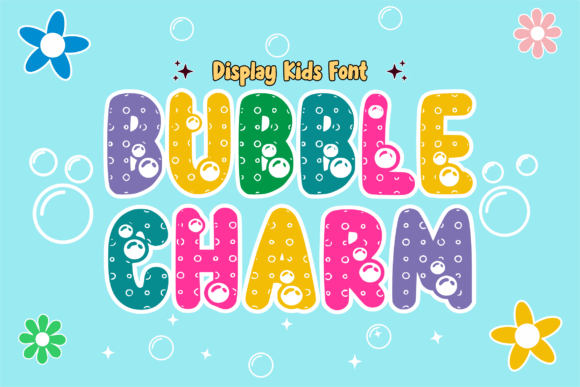
Introducing Bubble Charm: The Playful Font That’s Making Waves in the Design World
Have you ever been in the middle of a design project, and suddenly, you’re stuck on finding the perfect font? I recall a recent experience where I was working on a children’s book cover, and I just couldn’t find a font that captured the playful, whimsical feel I was going for. That’s when I stumbled upon “Bubble Charm,” a cheerful decorative bubble font with a children’s theme that completely transformed my design.
The Birth of Bubble Charm
Bubble Charm is more than just a font – it’s a design element that brings a smile to your face. Each character is carefully crafted to be bubbled, making it easy to recognize and perfect for a variety of creative projects, from sublimation designs for t-shirts and mugs to animations and comic titles. The font’s unique charm (pun intended!) is sure to make your designs stand out.
My Honest Review of Bubble Charm
So, what do I love about Bubble Charm? Here are a few highlights:
- ✨ Playful and Whimsical: The bubbly design of each character is perfect for children’s themes, adding a touch of fun and playfulness to any project.
- ✅ Easily Readable: Despite its decorative nature, Bubble Charm remains highly legible, making it suitable for both headings and body text.
- 💡 Versatile: This font can be used across various platforms and mediums, from digital designs to print materials.
While Bubble Charm is a delightful font, there are a few minor quirks to be aware of:
- 🤔 Limited Use Cases: Due to its playful nature, Bubble Charm might not be the best fit for more formal or professional projects.
The Inspiration Behind Bubble Charm
While the true story behind Bubble Charm’s creation is unique to its designer, it’s easy to imagine that the inspiration came from a love of children’s art and a desire to create a font that would bring joy to designers and their audiences. Perhaps the designer, surrounded by colorful toys and whimsical illustrations, sought to bottle up that playful energy into a single, delightful font.
| Font Name | Bubble Charm Font |
| Author | TaralArt |
| What is Bubble Charm best used for? | Bubble Charm is perfect for children’s themes, sublimation designs, animations, comic titles, and any project requiring a playful touch. |
| Is Bubble Charm easy to read? | Yes, despite its decorative nature, Bubble Charm remains highly legible, making it suitable for both headings and body text. |
| Are there any limitations to using Bubble Charm? | Bubble Charm might not be suitable for formal or professional projects due to its playful nature. Additionally, some glyphs or special characters might be limited. |